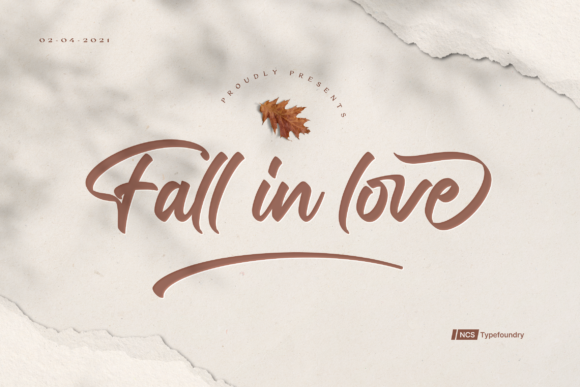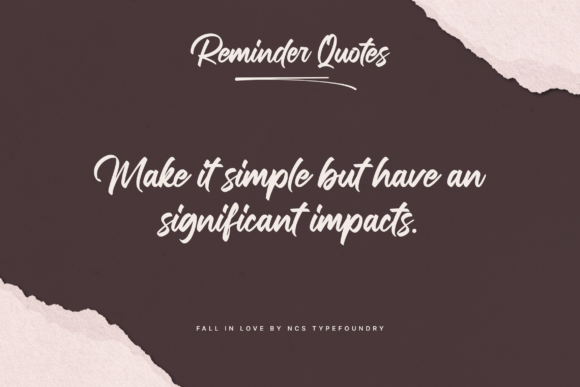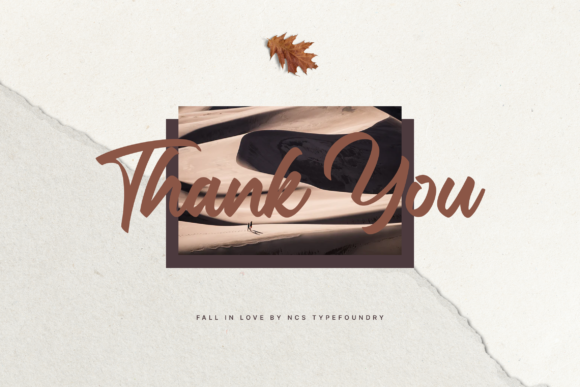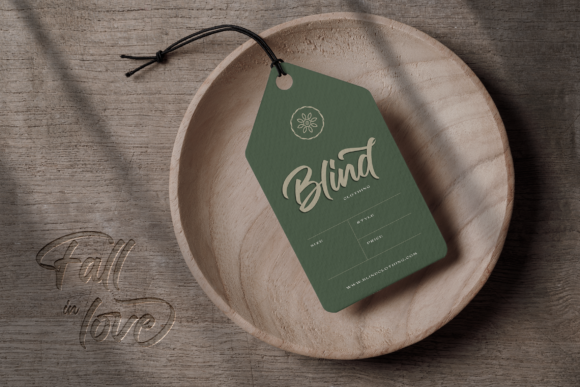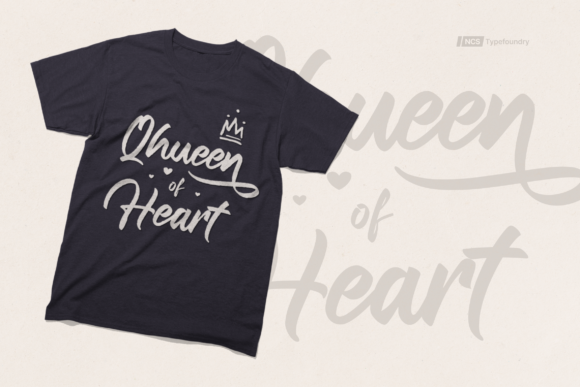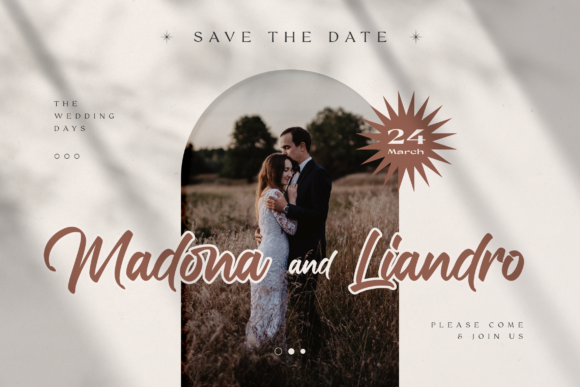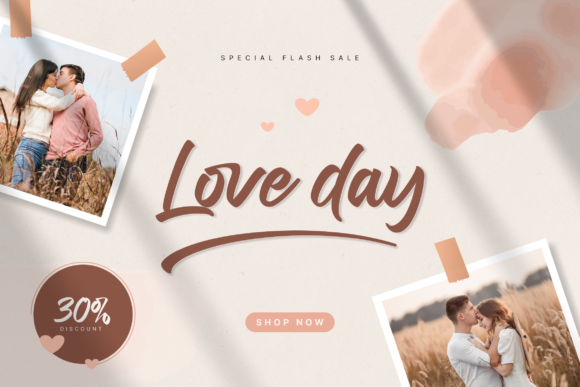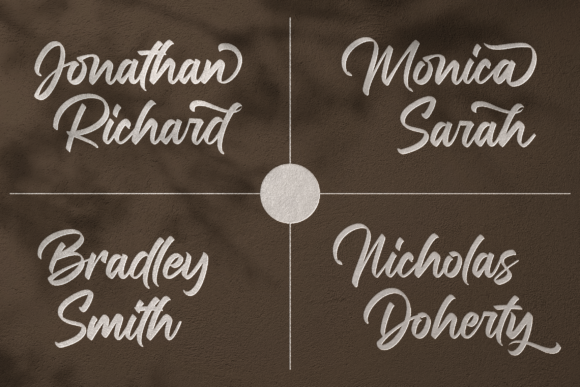
Fall in Love Font
About Fall in Love Font
Fall in Love is a cursive, paint brushed handwritten font. It looks beautiful on a variety of designs requiring a personalized style, such as wedding invitations, thank you cards, weddings, greeting cards, logos and so on.